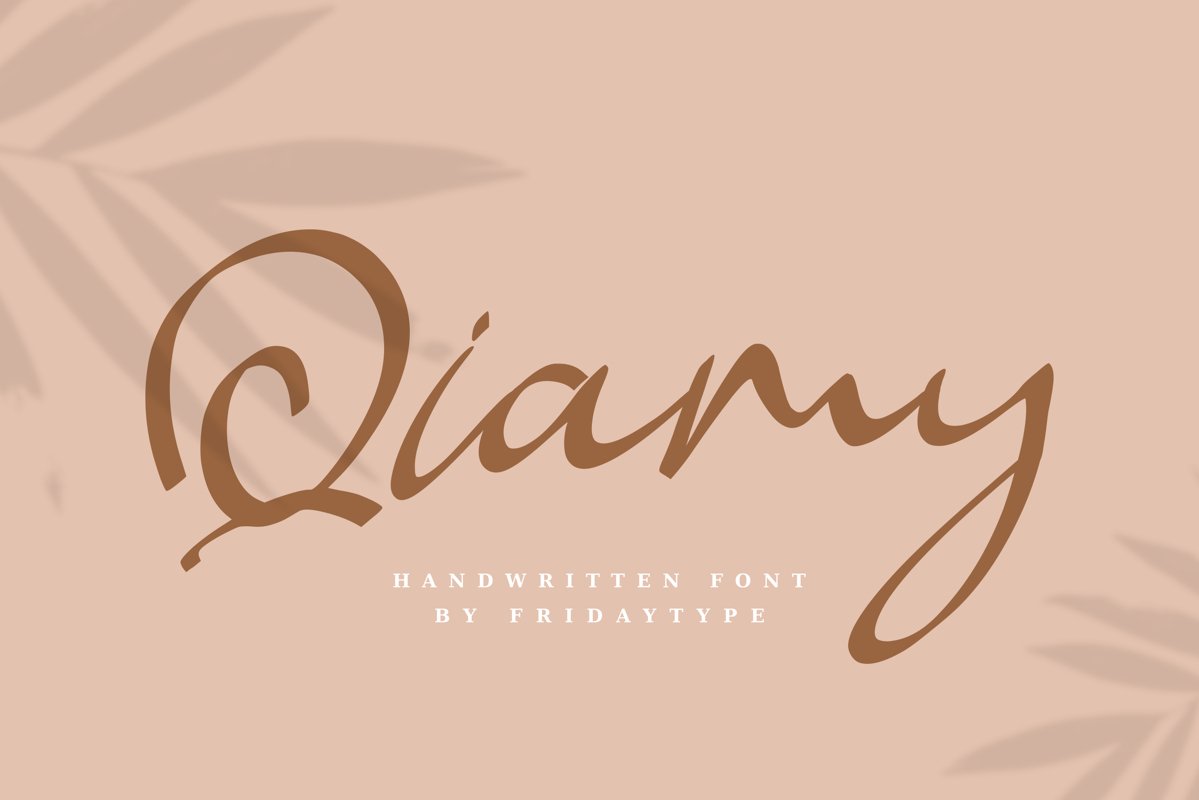
Qiamy
Qiamy is handmade signature style font with stunning characters. Handwritten font with quick dry strokes and a signature style. Ideal for logos, name tag, handwritten quotes, product packaging, merchandise, social media & greeting cards. It contains a full set of lower & uppercase letters, a large range of punctuation, numerals, and multilingual support.